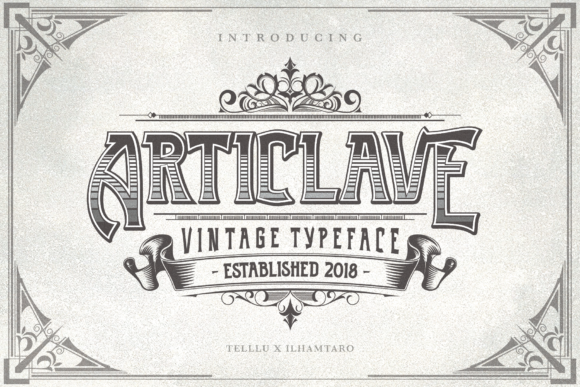
Embark on a typographic journey with Articlave Font, a display font that will leave you spellbound. Crafted by the visionary minds at Telllu, this font family offers three distinct styles, granting you the creative freedom to manifest captivating designs with every use.
Prepare to be mesmerized by Articlave's vintage charm, a style that exudes timeless elegance while retaining a modern edge. Its unique personality shines through, adding a touch of individuality to your projects.
Articlave Font is not just a font; it's an experience. Its ability to evoke emotions and captivate audiences sets it apart from the mundane. Whether you're a seasoned designer or just starting your typographic adventure, Articlave Font will ignite your imagination and unlock a world of design possibilities.